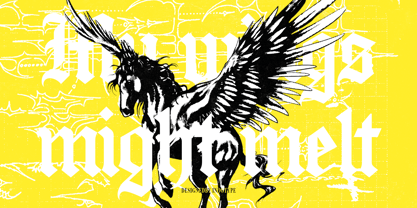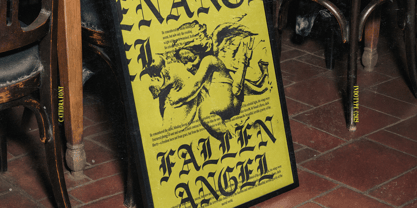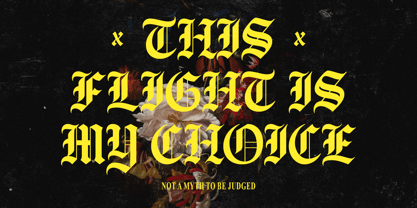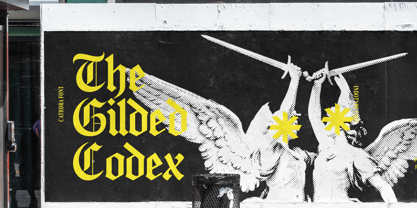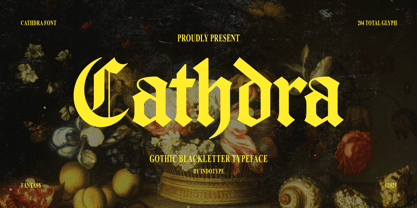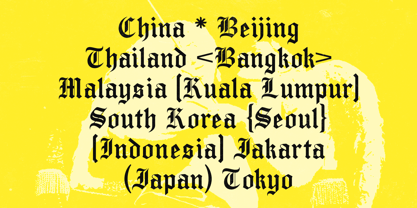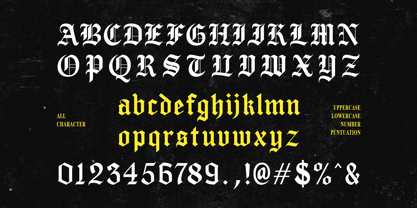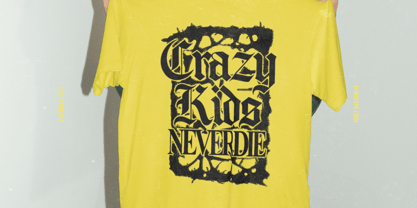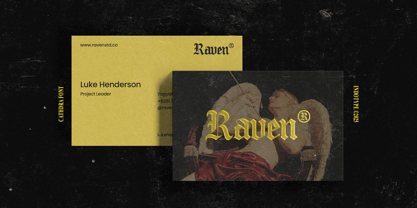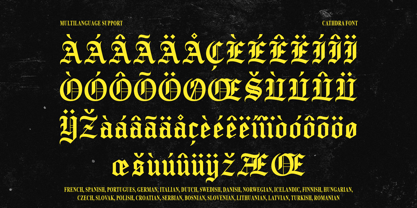
IT Cathdra
von Indotype
Die Schriftfamilie IT Cathdra wurde von Dede Kurniawan entworfen und von Indotype veröffentlicht. IT Cathdra enthält 1 Stile. Mehr über diese Familie
Cathdra is a powerful and atmospheric Gothic Blackletter typeface that channels the ancient spirit of calligraphy into a modern design tool. With its sharp, angular strokes and intricate detailing, this font evokes a sense of medieval grandeur, dark fantasy, and timeless mystique. Each character is crafted with a dramatic presence, making Cathdra an ideal choice for projects that require bold, expressive, and historically-rich typography. This typeface offers substantial versatility for creating immersive worlds. Its unmistakable Gothic aesthetic makes it perfect for everything from heavy metal album art and fantasy book covers to historical branding, tattoo designs, and occult-themed projects. Cathdra is more than just a font—it's a statement of dark artistry and narrative power. • Ideal for: Fantasy Book Covers, Metal Band Logos, Tattoo Design, Gothic Branding, Occult & Mystical Art, Historical Events, Game Titles. • Classification: Blackletter, Gothic, Display, Decorative, Fantasy. • Attributes: Dramatic, Atmospheric, Historical, Ornate, Bold, Mystical, Powerful.
Designer: Dede Kurniawan
Aktuelle Foundry: Indotype